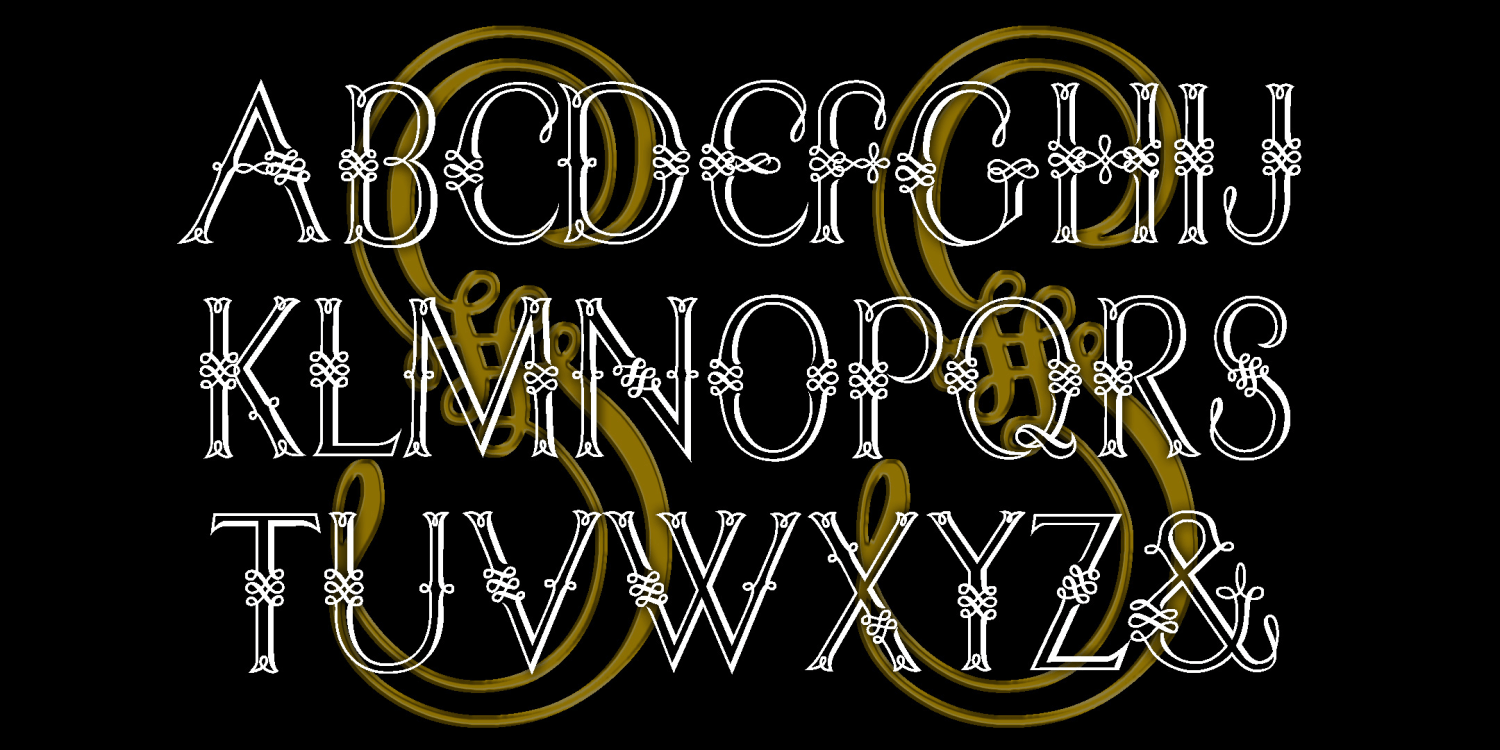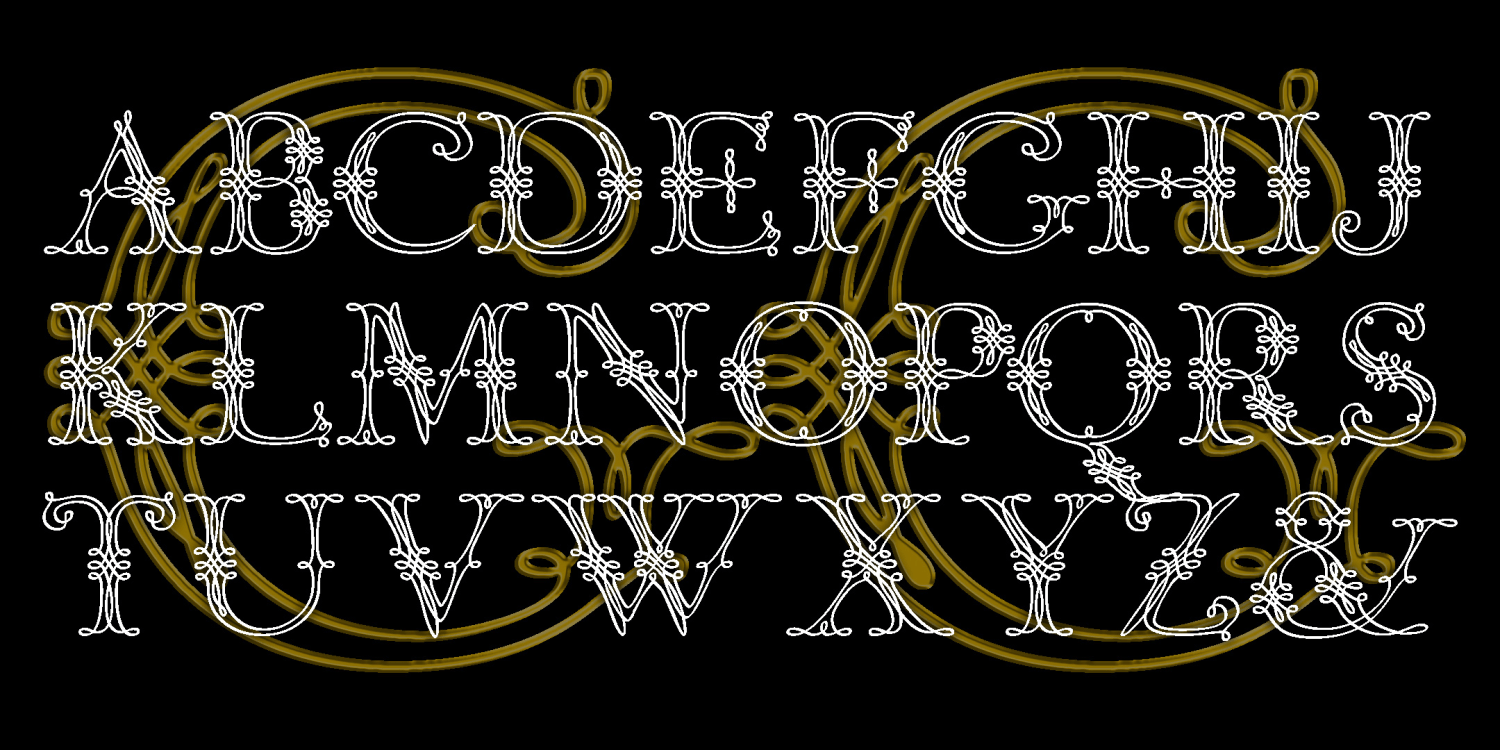
About Graceful Ghost & Sweet Spirit
GRACEFUL GHOST, an ornamental, calligraphic font, was suggested to me by Bruce Baryla, who also proposed the name. Here is all the information I have about the original design that inspired it: 18th century, French School, Pouget Brothers." …